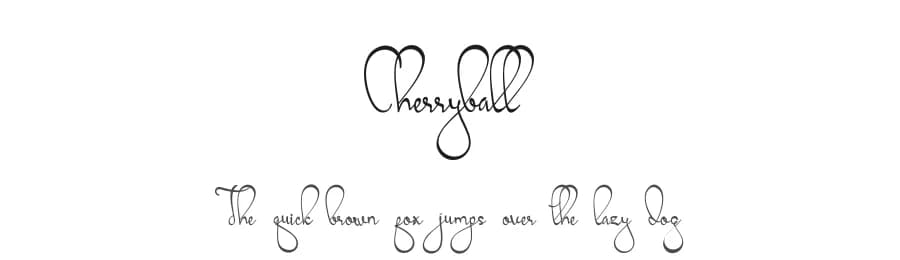
About Cherryball Font
Cherryball is a cool and fun script font with a unique vibe. Get inspired by its charming feel!
Cherryball Font is a script font that shines as a display or heading face. Pair it with a clean sans-serif or serif font for body text β the contrast creates a clear hierarchy while the two styles stay balanced and easy to read.
Cherryball Font